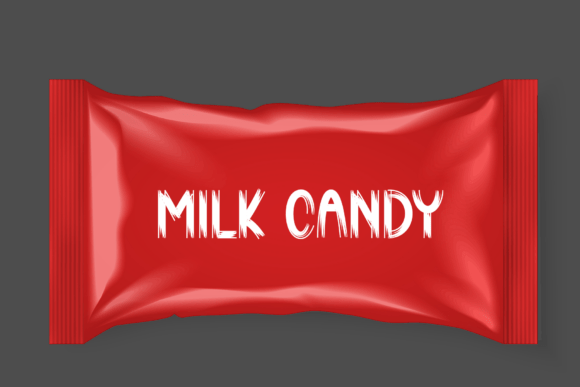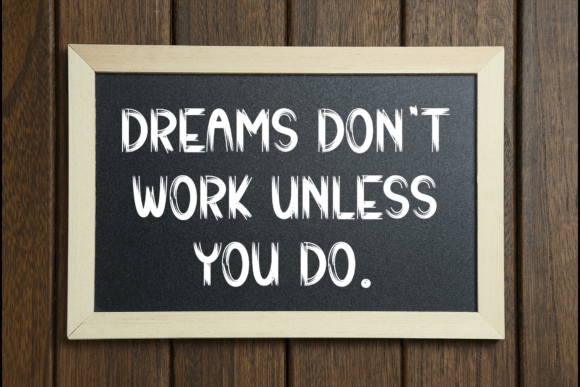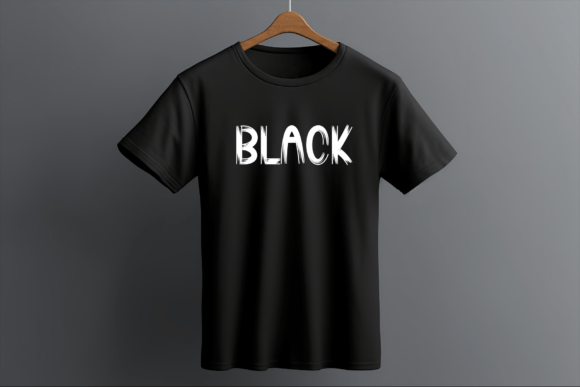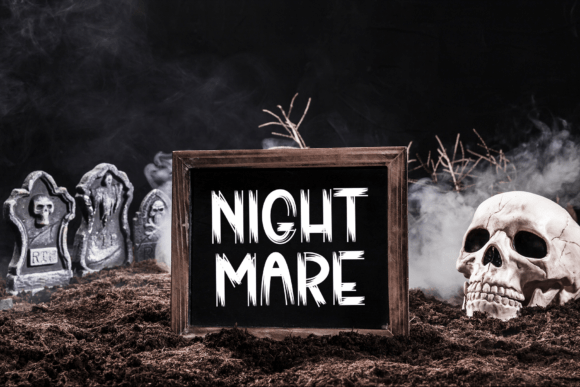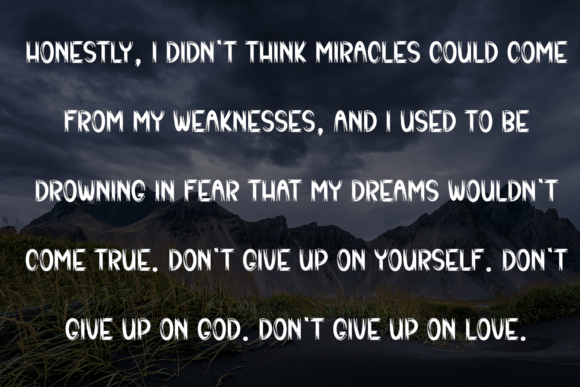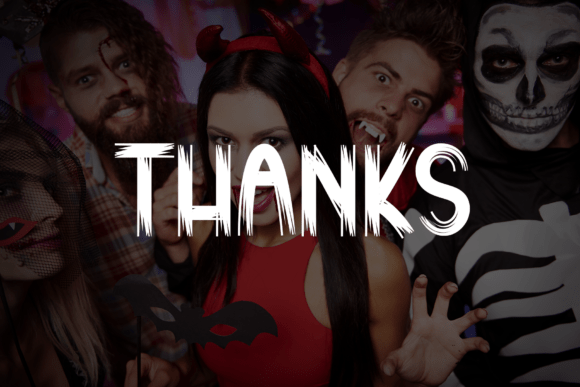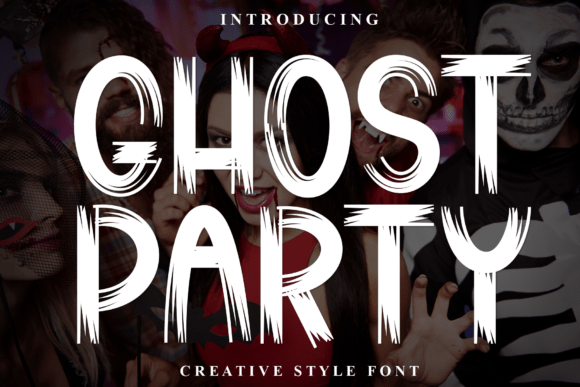
Unleash the Spooky Vibes with Ghost Party Font: The Ultimate Display Typeface for Edgy Designs
Are you looking for a font that captures the essence of a spooky celebration? Do you want to add a touch of rebelliousness to your designs? Look no further than the Ghost Party font, a creative style display typeface that’s perfect for Halloween event branding, horror-themed gaming streamers, and edgy street-style apparel.
The Inspiration Behind Ghost Party Font
The Ghost Party font is designed to evoke the kinetic energy of a spooky celebration. Its heavy, bold strokes and aggressive, brushed textures on the edges give it a unique, rough-around-the-edges feel that’s reminiscent of dry paint or a rough marker on a wall. This font is all about making a statement, and it’s sure to grab attention with its high-contrast textures that remain visible even against chaotic, dark backgrounds.
Perfect for Edgy Designs
The Ghost Party font is an essential asset for designers who want to create edgy, eye-catching designs. Whether you’re working on a Halloween party flyer, a horror-themed podcast logo, or a street-style apparel design, this font is sure to deliver. Its bold, attention-grabbing style pairs exceptionally well with gritty overlays and neon color schemes, creating a creative style that feels both rebellious and atmospheric.
Key Features of Ghost Party Font
• Heavy, bold strokes: The Ghost Party font features thick, bold strokes that give it a rugged, eye-catching appearance.
• Aggressive, brushed textures: The font’s edges have a rough, brushed texture that adds to its rebellious, edgy feel.
• High-contrast textures: The font’s textures are designed to remain visible even against dark, chaotic backgrounds, making it perfect for designs that require a bold, eye-catching look.
• Maximum spooky impact: The Ghost Party font is designed to deliver maximum spooky impact, making it perfect for Halloween event branding, horror-themed gaming streamers, and edgy street-style apparel.
Use Cases for Ghost Party Font
The Ghost Party font is versatile and can be used in a variety of design projects, including:
• Halloween event branding: Use the Ghost Party font to create eye-catching flyers, posters, and social media graphics for your Halloween party.
• Horror-themed gaming streamers: Add a touch of spookiness to your gaming streams with the Ghost Party font, perfect for creating bold, eye-catching overlays.
• Edgy street-style apparel: Use the Ghost Party font to create bold, rebellious designs for street-style apparel, such as t-shirts, hoodies, and hats.
• Horror-themed podcast logos: Create a bold, eye-catching logo for your horror-themed podcast with the Ghost Party font.
Tips for Using Ghost Party Font
Here are some tips for getting the most out of the Ghost Party font:
• Pair with gritty overlays: The Ghost Party font pairs exceptionally well with gritty overlays, adding to its edgy, rebellious feel.
• Use neon color schemes: Neon color schemes complement the Ghost Party font’s bold, eye-catching style, creating a creative style that’s both rebellious and atmospheric.
• Experiment with textures: The Ghost Party font’s high-contrast textures make it perfect for experimenting with different textures and backgrounds.
In conclusion, the Ghost Party font is a must-have for designers who want to create edgy, eye-catching designs that capture the essence of a spooky celebration. Its bold, attention-grabbing style and high-contrast textures make it perfect for a variety of design projects, from Halloween event branding to horror-themed gaming streamers and edgy street-style apparel. So why wait? Unleash the spooky vibes with the Ghost Party font and take your designs to the next level!